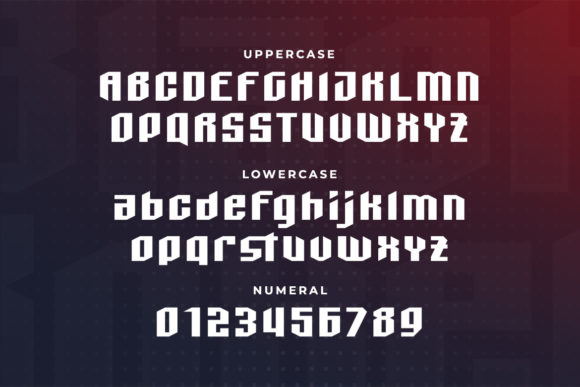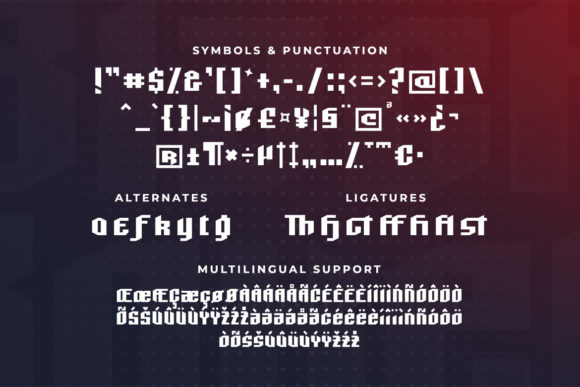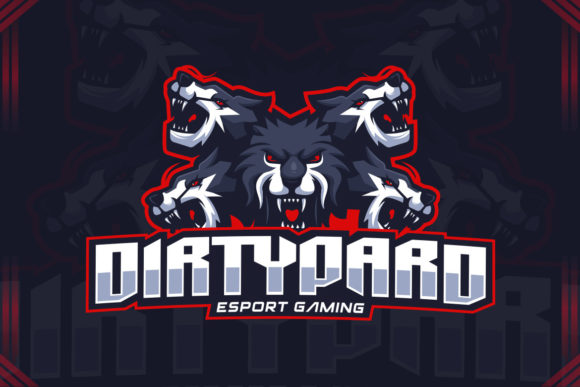
Black Boxer Font
Black Boxer is a bold, e-sport display font, designed in a modern style.It is perfect for games, sporting logos, game tournament advertising, cover album or any related gaming design.